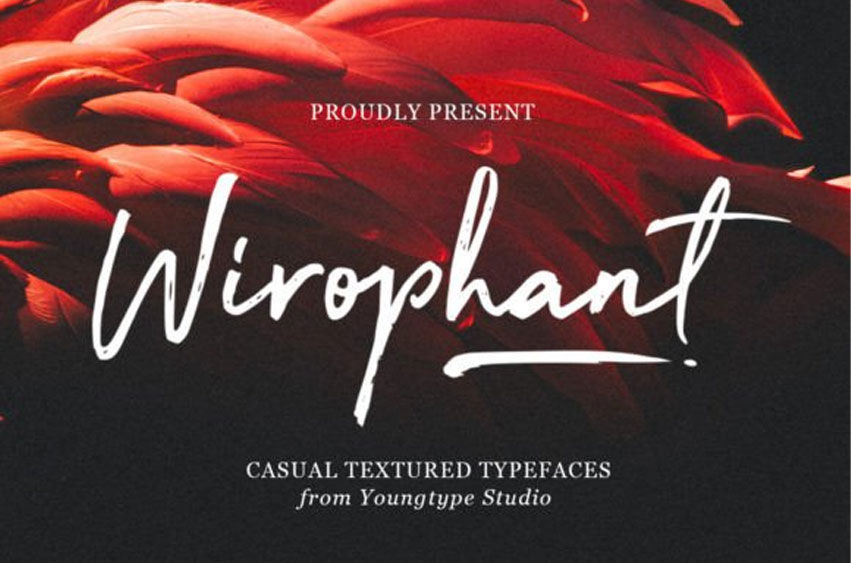
Wirophant Font
Wirophant Font are modern font sets featuring an organic, dynamic and energetic style.
They can be used for a variety of purposes, such as titles, signatures, logos, correspondence, wedding invitations, letterheads, nameplates, labels, newsletters, posters, badges and much more.